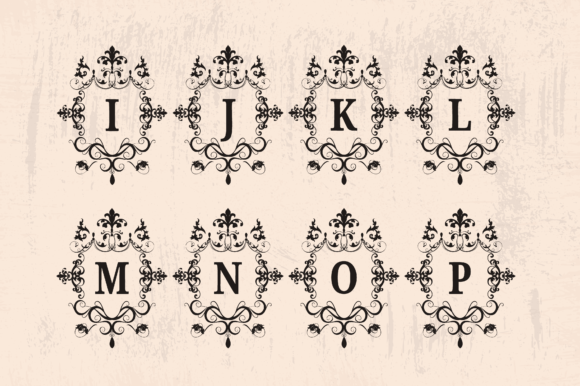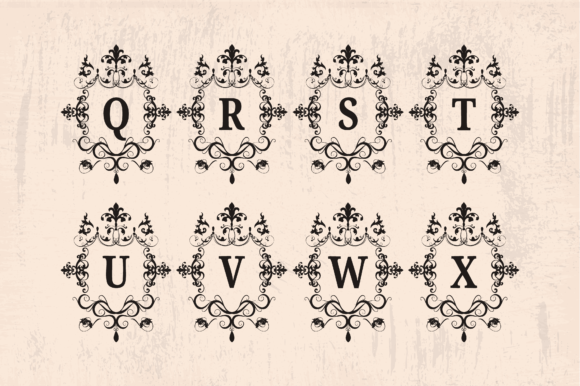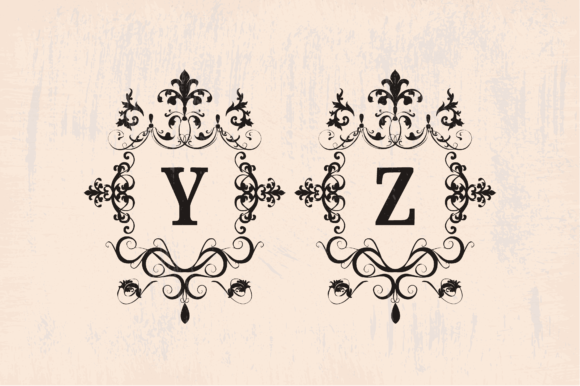
Shabby chic flourishes monograms is a beautiful decorative font designed to help you generate multiple dings by typing capital letters and numbers.
It was thought to complement shabby contexts, but it can be used with various projects and designs All you need to do is to determine which colors and textures to apply so you can obtain the desired effect.